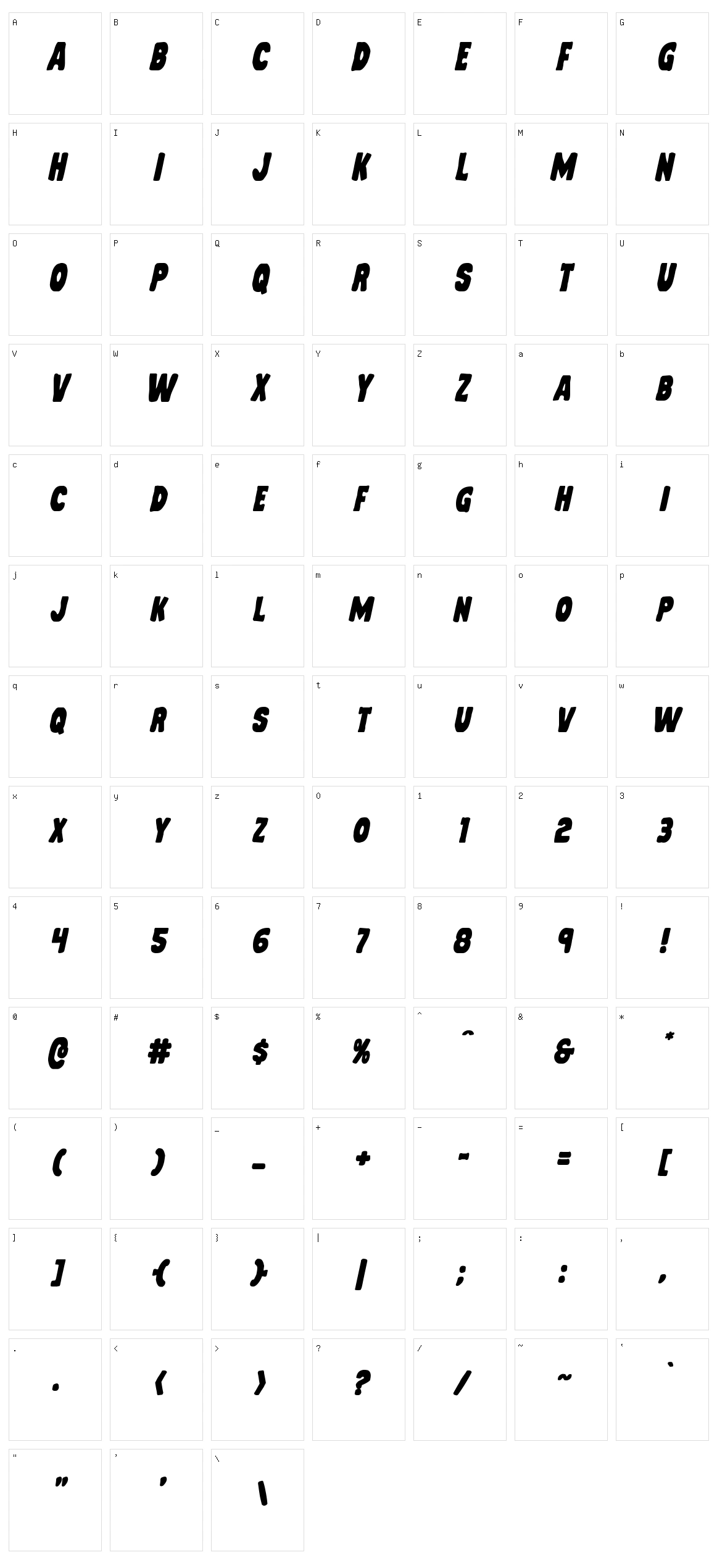
The free font Mystery Mobile is carefully designed by Iconian Fonts, showcasing a thoughtful balance of creativity and usability and falls under the Cartoon font style. When you download the ZIP file, it contains only 338.13 KB of font files, making it lightweight and quick to download. Please review the license details below to understand permitted usage and distribution rights. If license information is not available, we recommend using this font for personal projects only or contacting the author directly for commercial usage permissions.
This font comes with the following 11 versions: Regular, Italic, Expanded, Expanded Italic, Condensed, Condensed Italic, 3D, 3D Italic, Rotated, Rotalic and Leftalic.